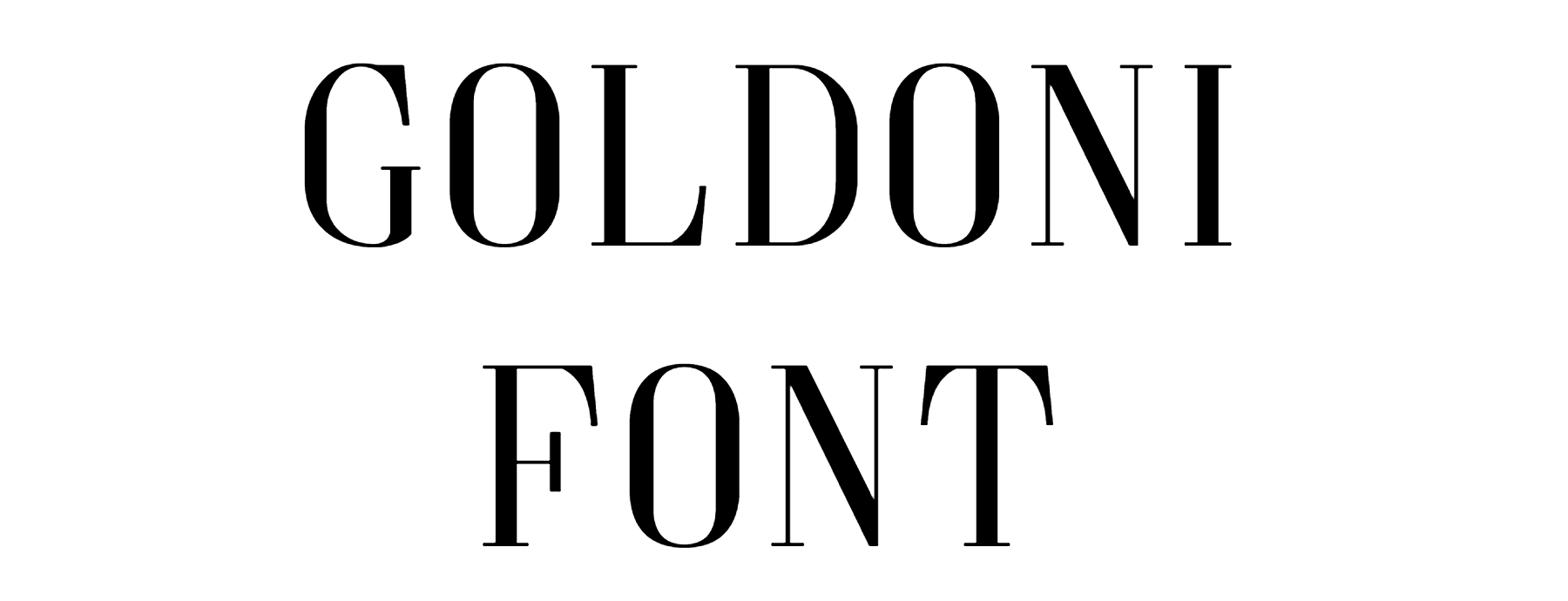
Goldoni
Goldoni is a serif font (2017). It has the traditional, bookish feel of type you see in novels, newspapers and long-established brands. You can download it for free and test it with your own words in the preview above.
What You Can Type With Goldoni
With complete upper and lowercase letters and all ten digits, Goldoni is ready for real wording, not just a single headline. Common punctuation such as &, !, ? and @ is included as well. It also has the accented letters you need for Spanish, French, German, Portuguese and Italian.
Where Goldoni Works Best
Goldoni is a natural fit for book covers, magazine headlines and classic branding. Serif fonts shine in headlines and printed text. For long paragraphs on phones, check that it still reads well at small sizes.
Does Goldoni support accented letters?
Yes. Goldoni includes the accented letters needed for Spanish, French, German, Portuguese and Italian, so it works for more than just English.